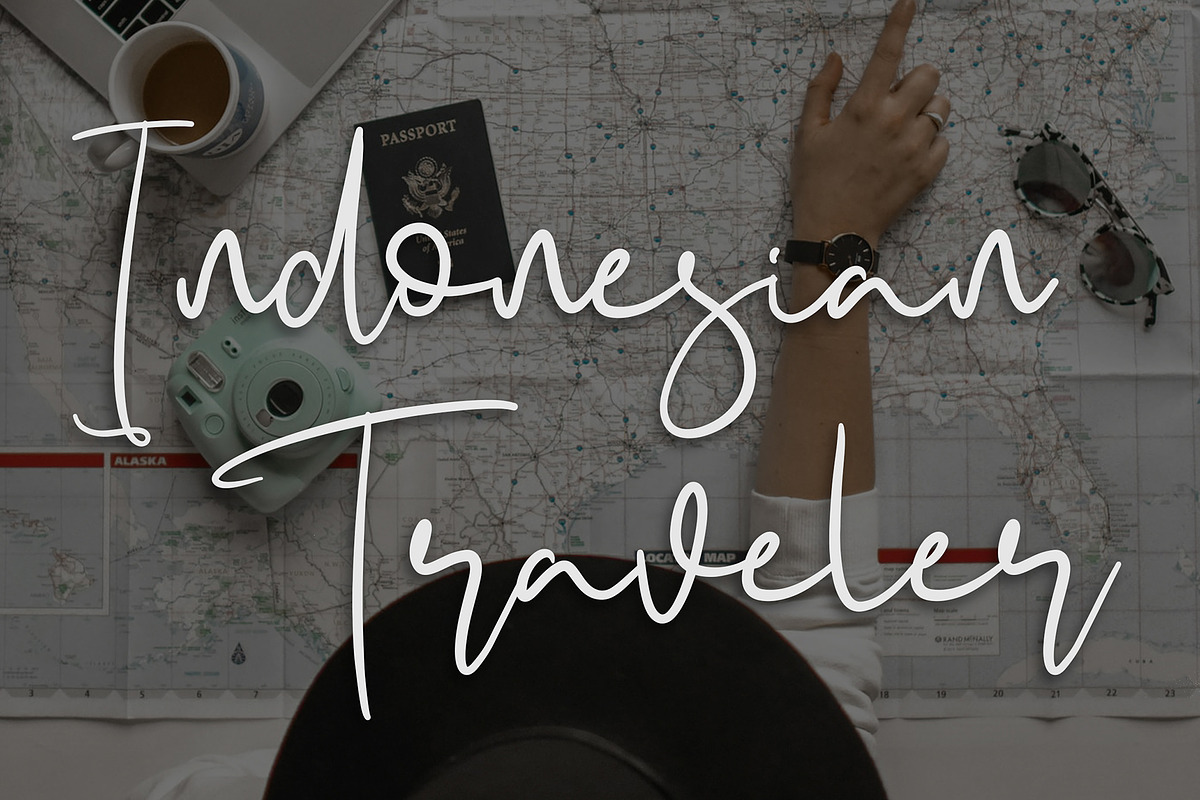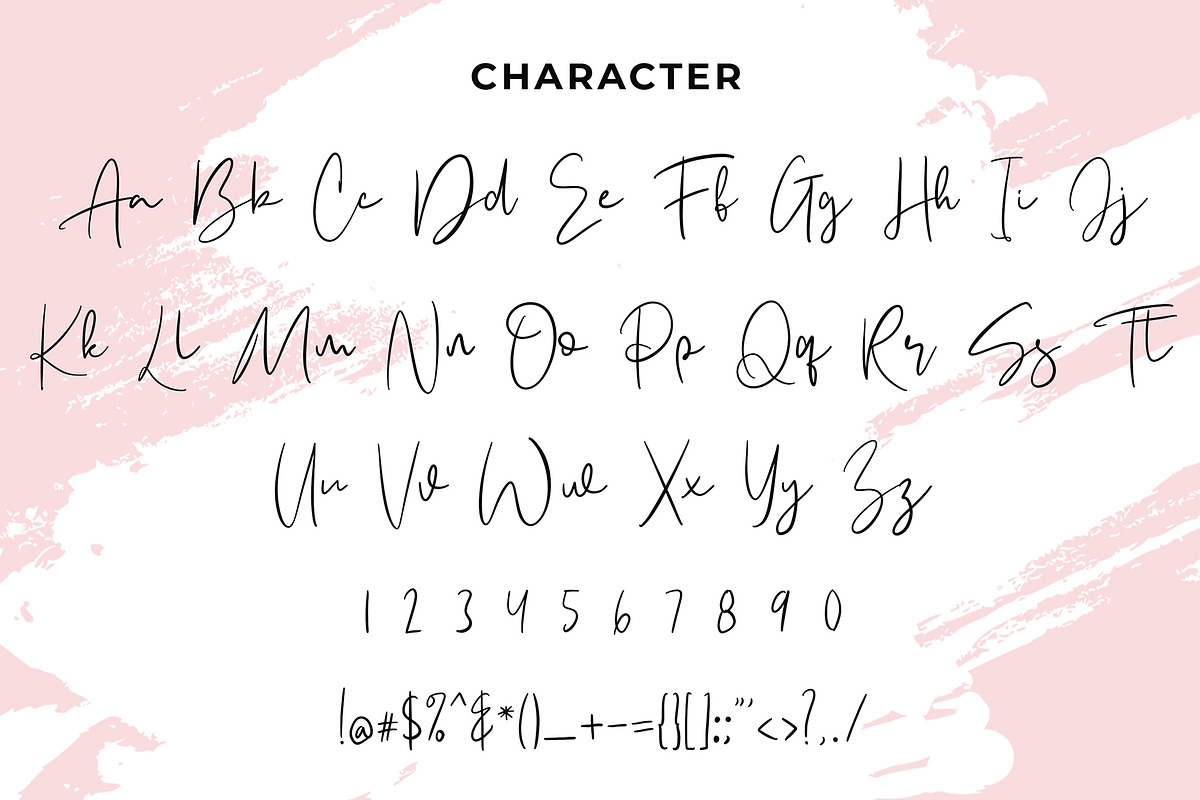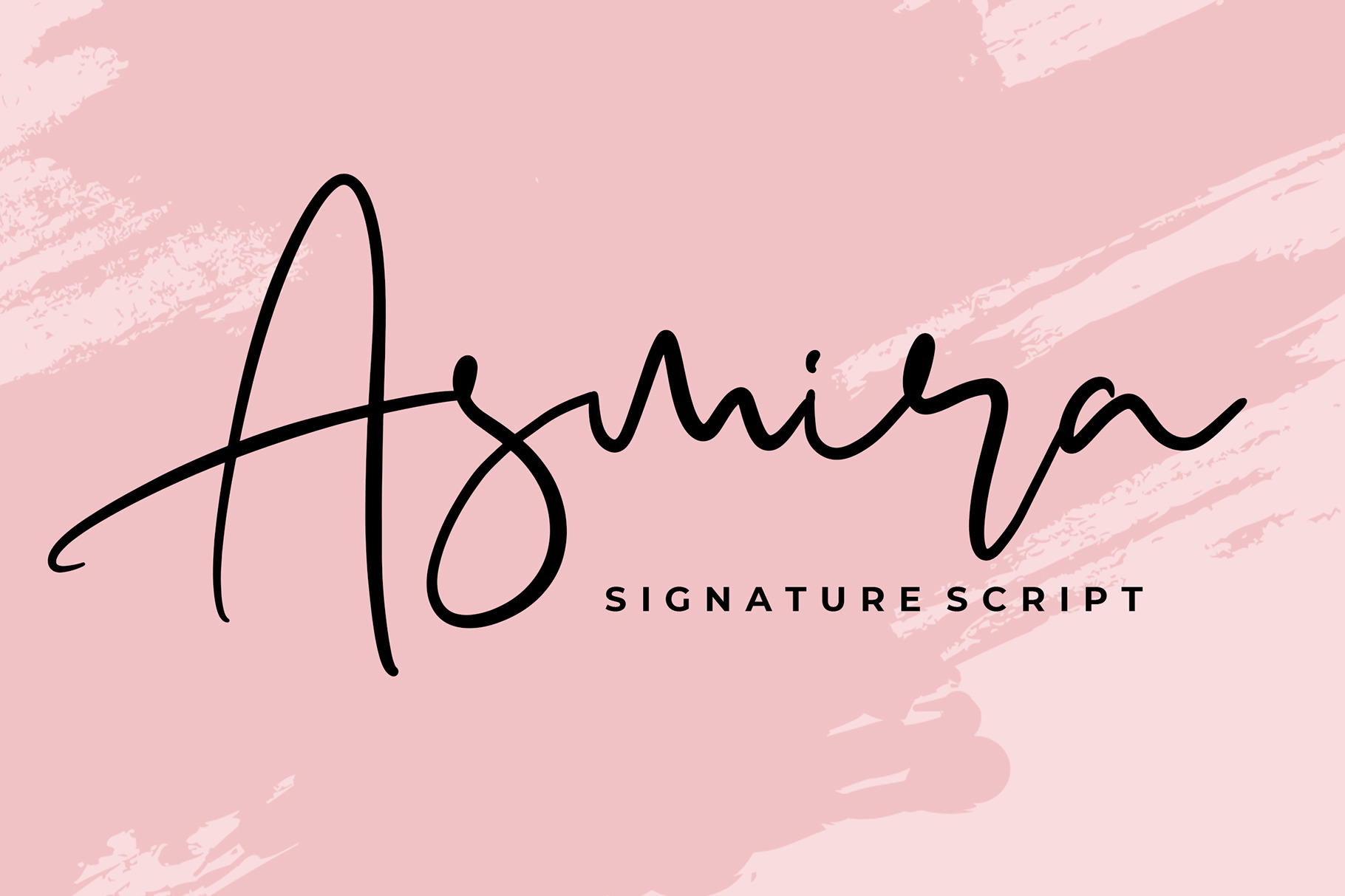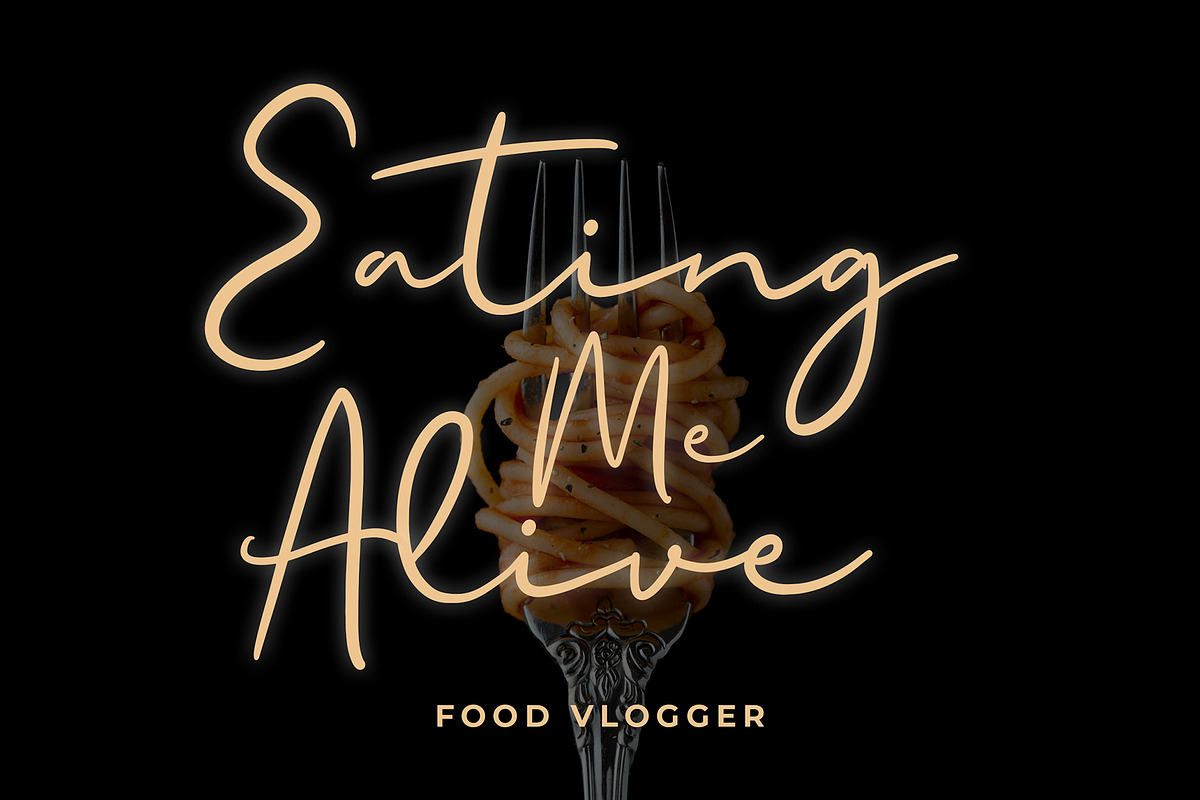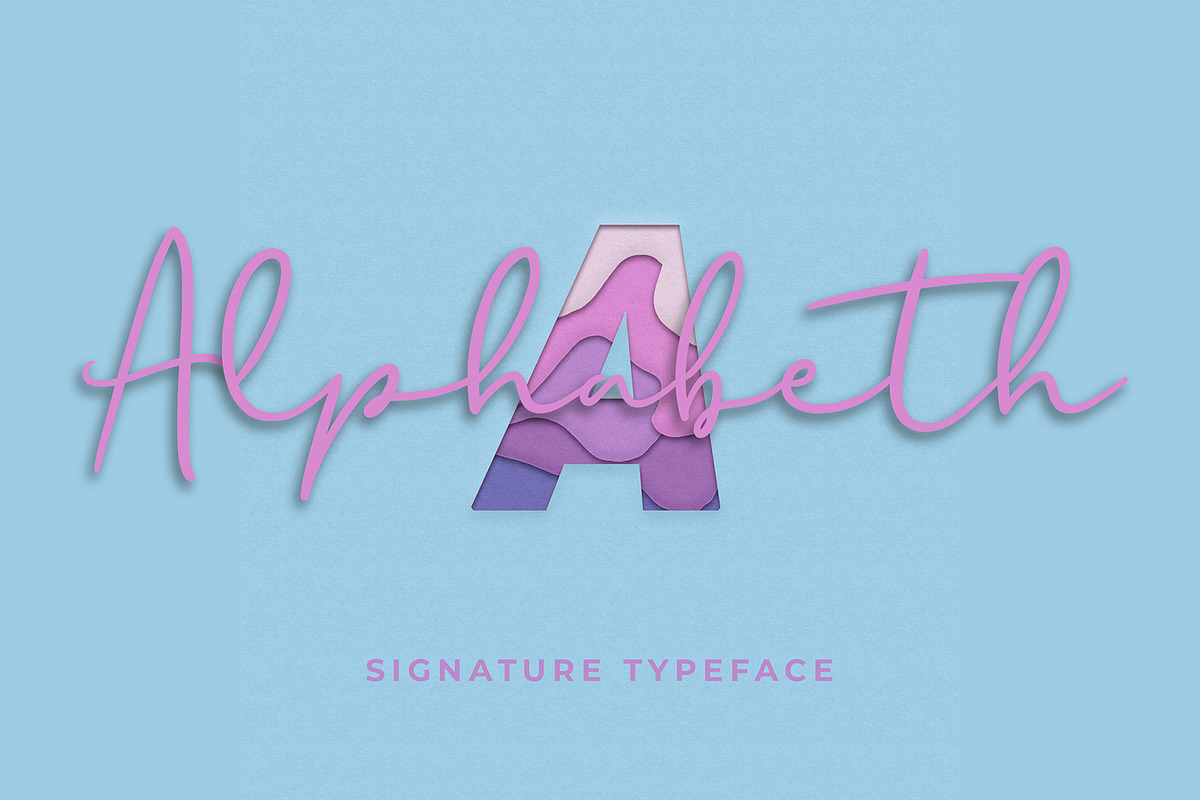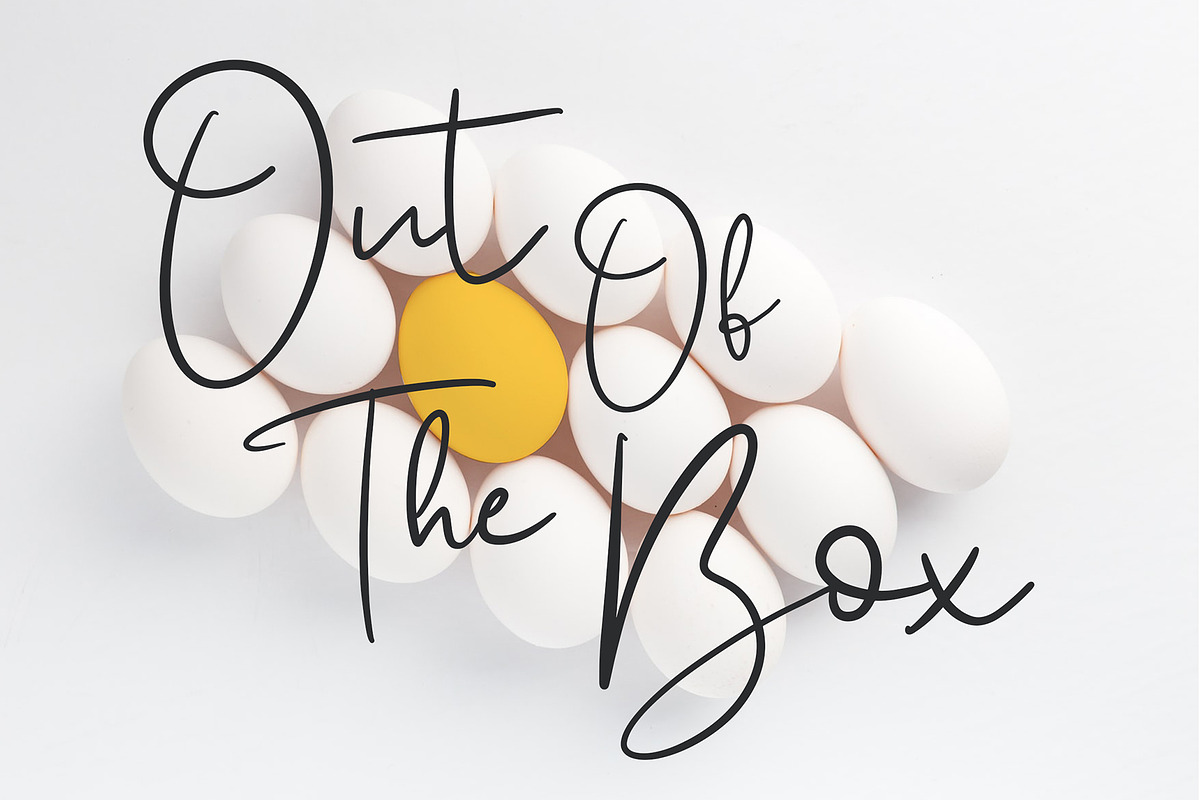
Asmira Signature Script Font
Asmira is a signature script can be used for various purposes such as logos, wedding invitations, t-shirts, letterheads, signage’s, labels, and much more!
- Tons of glyphs